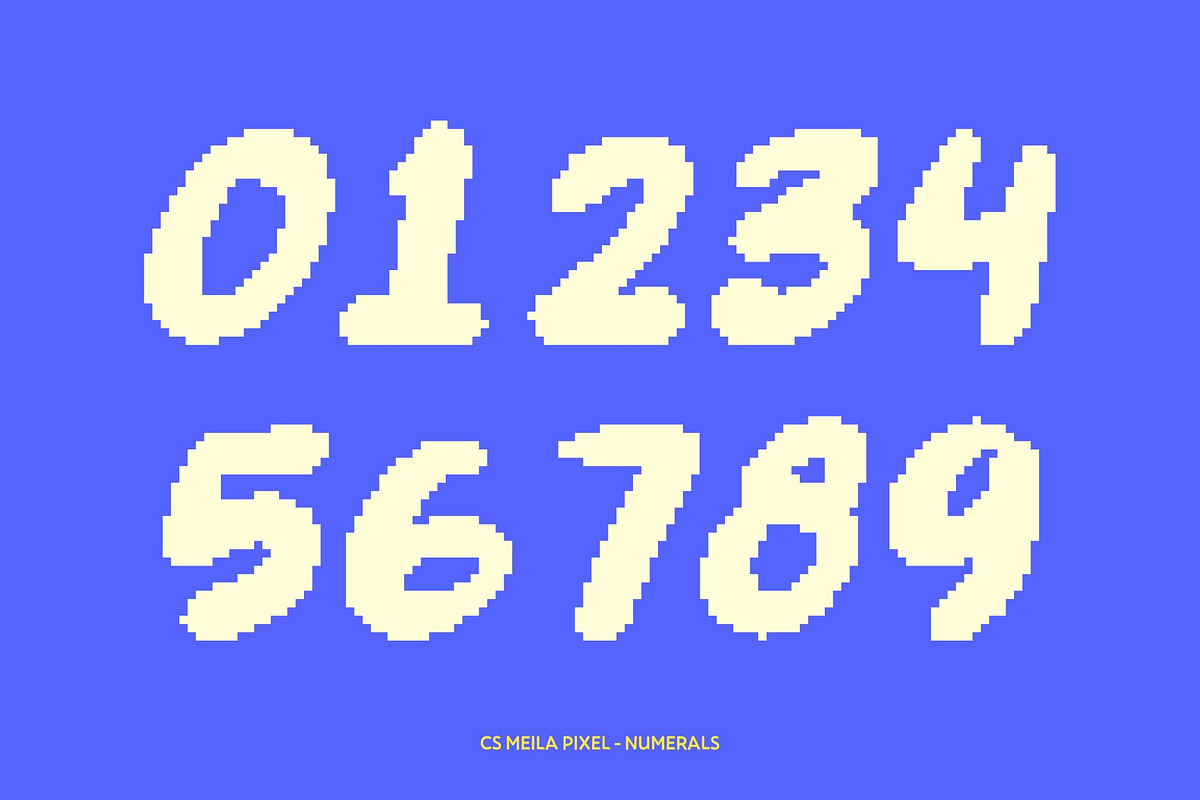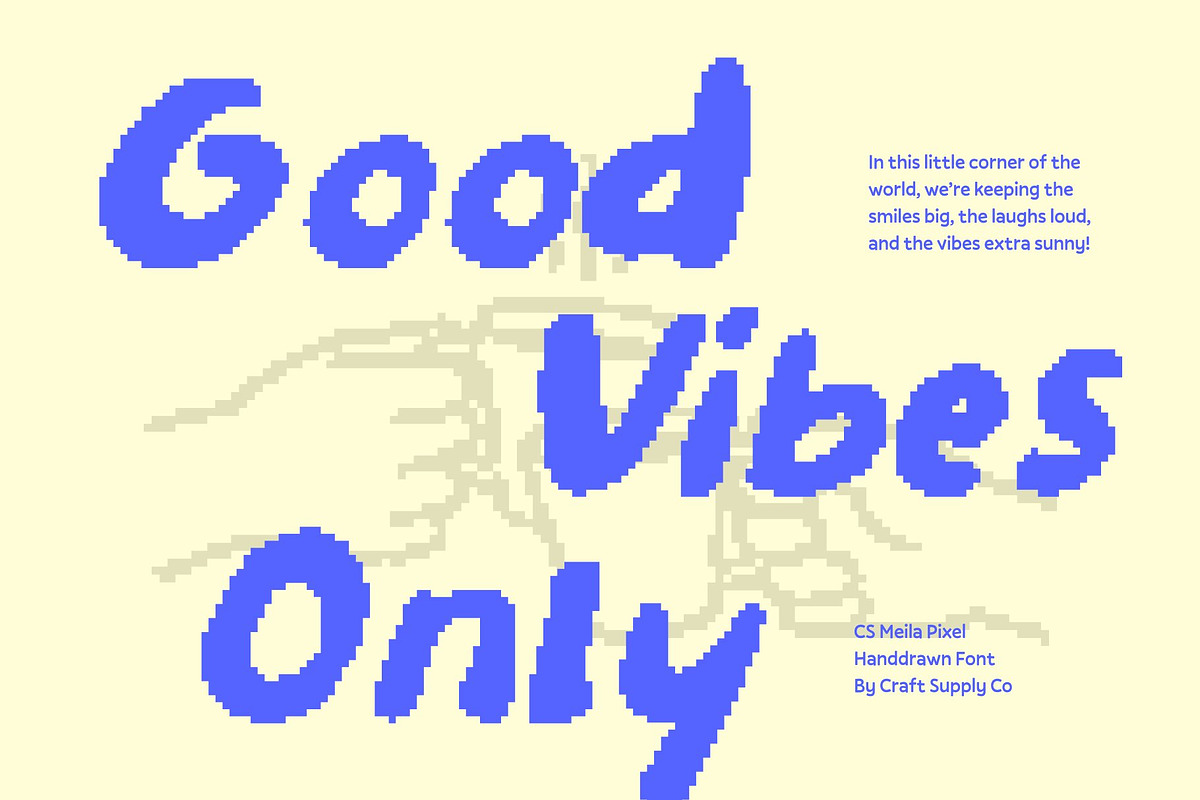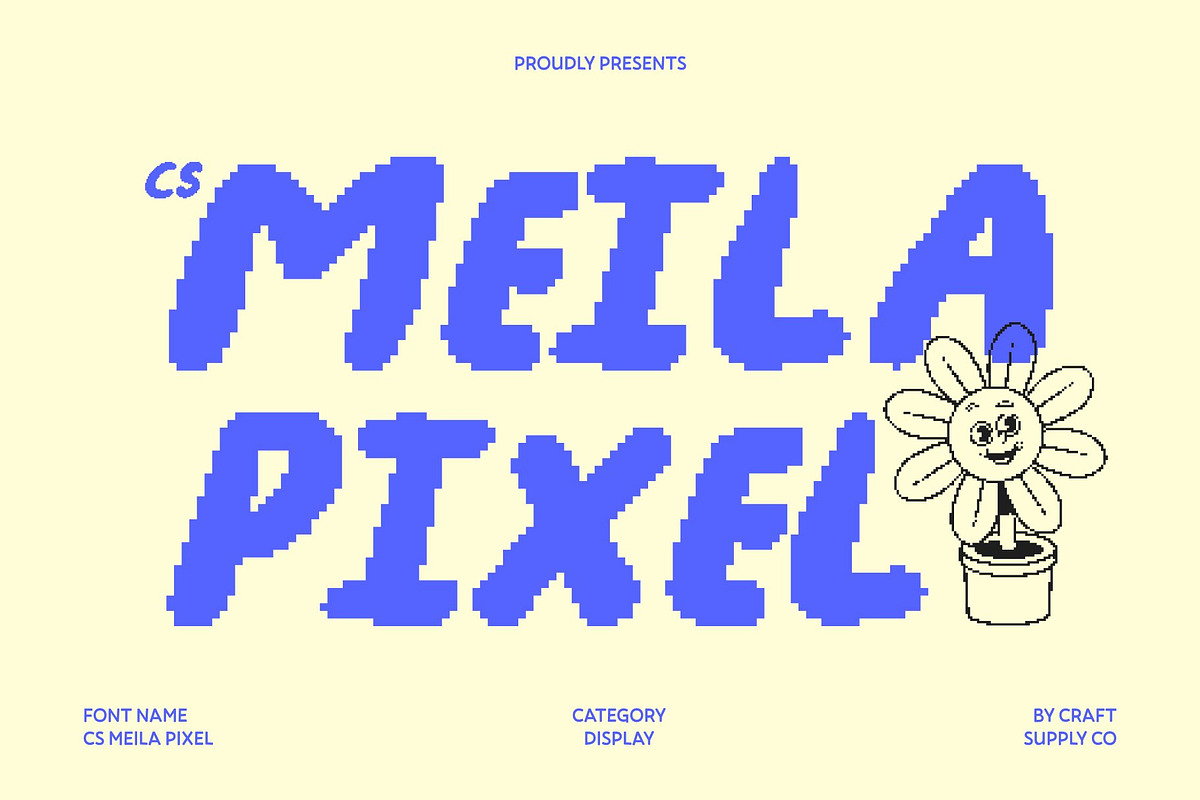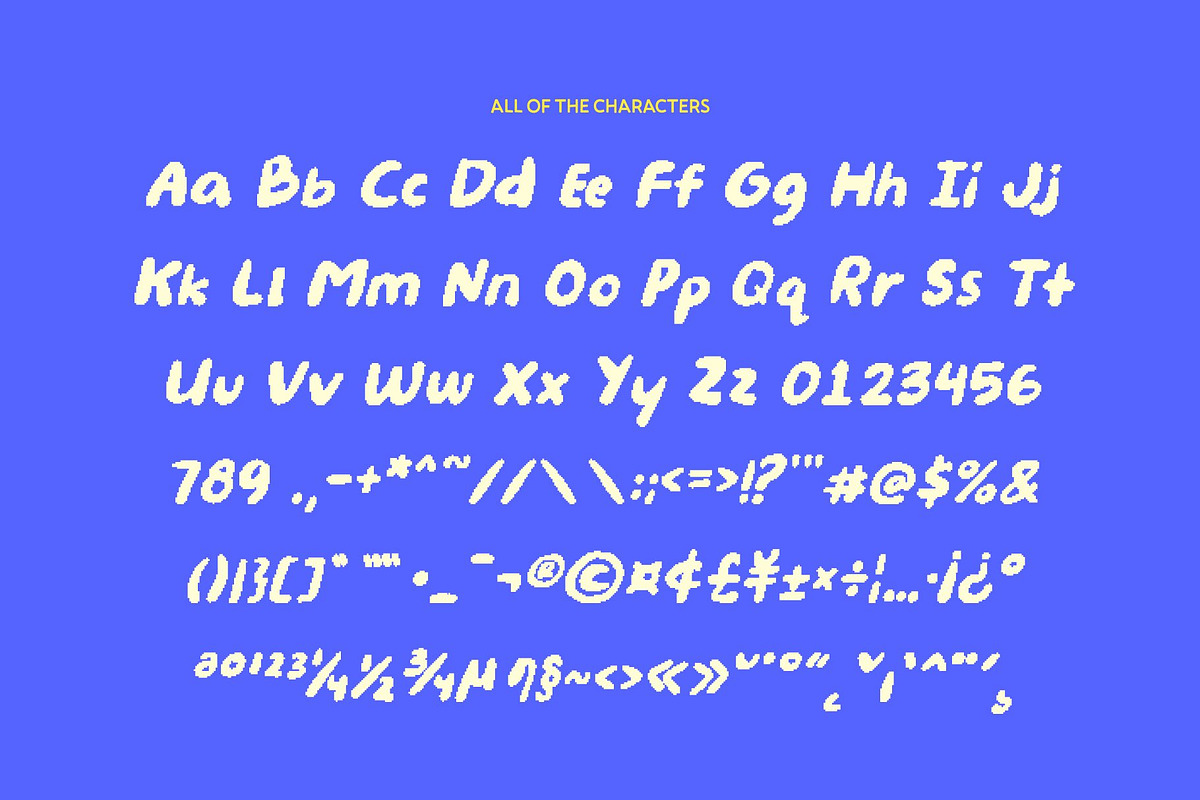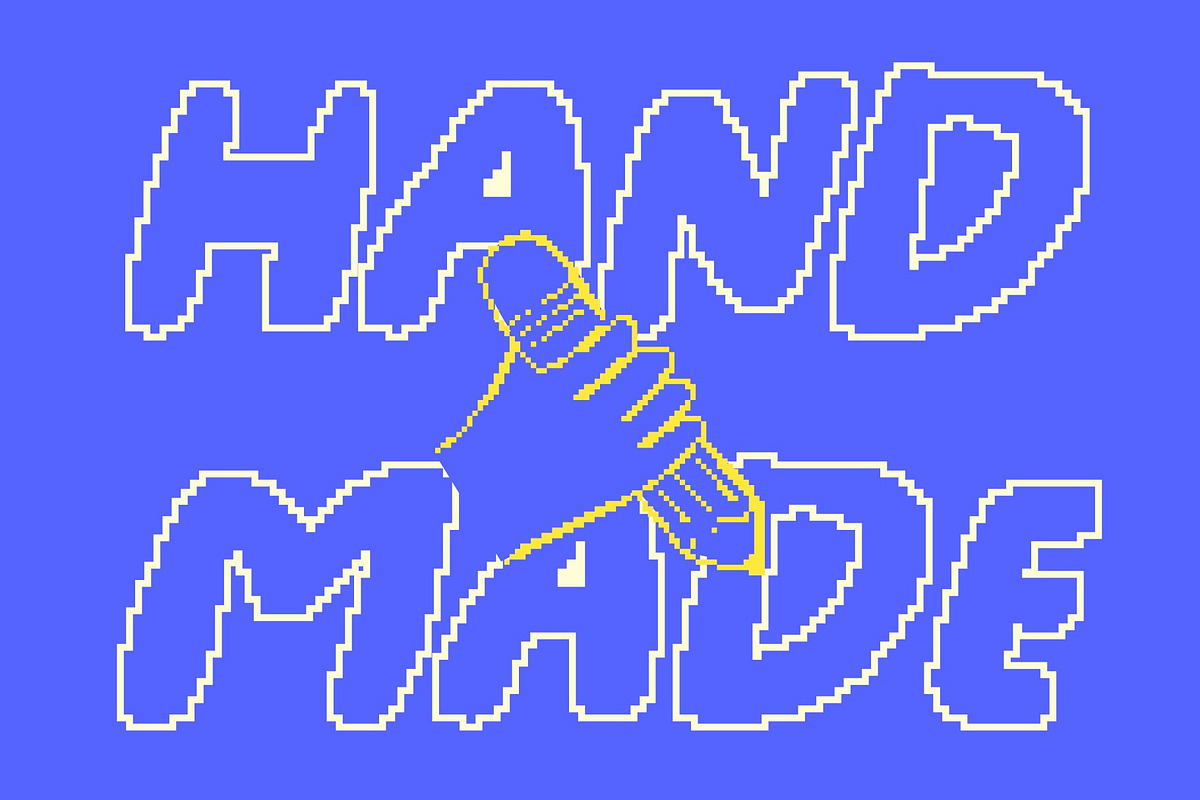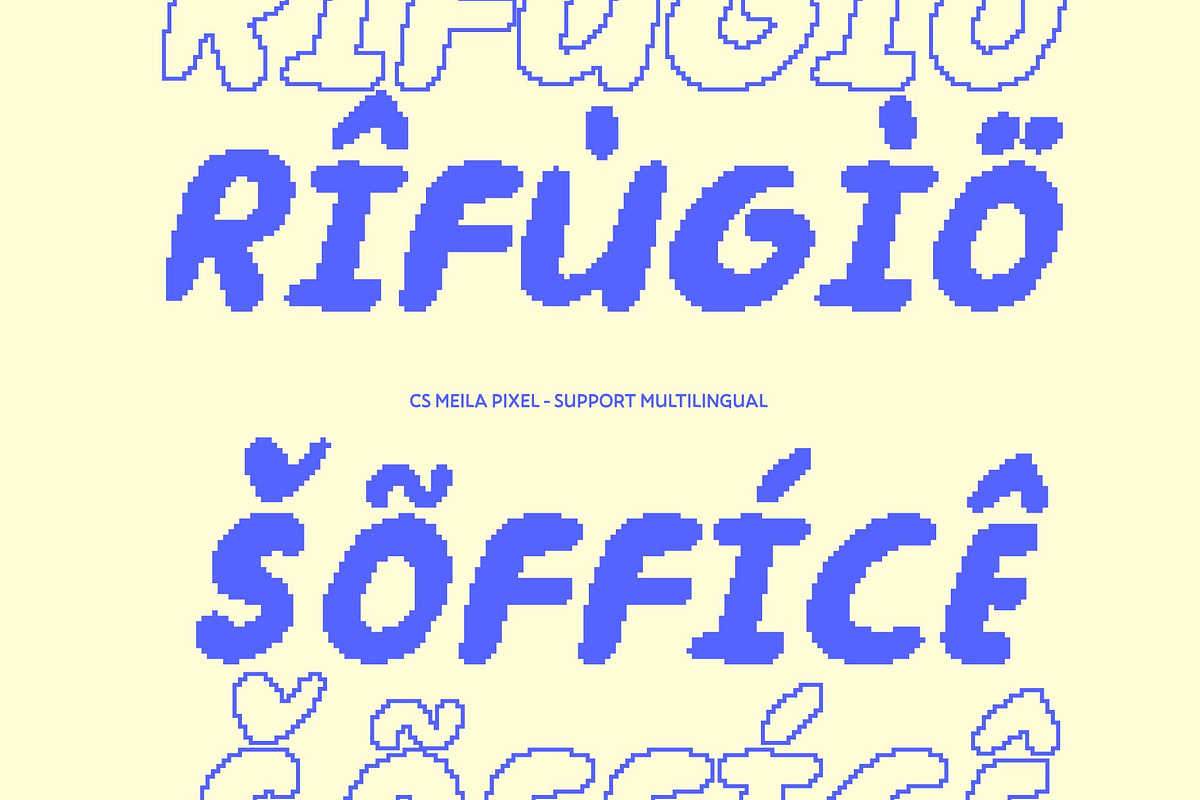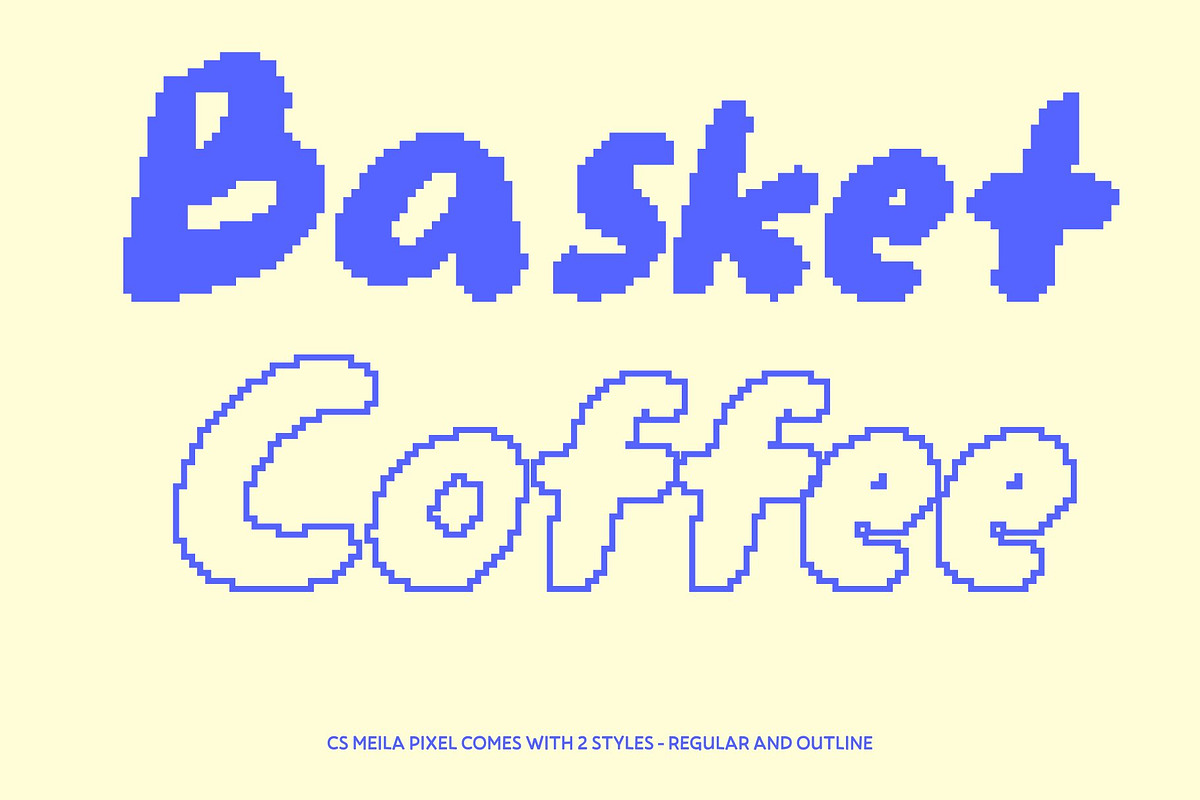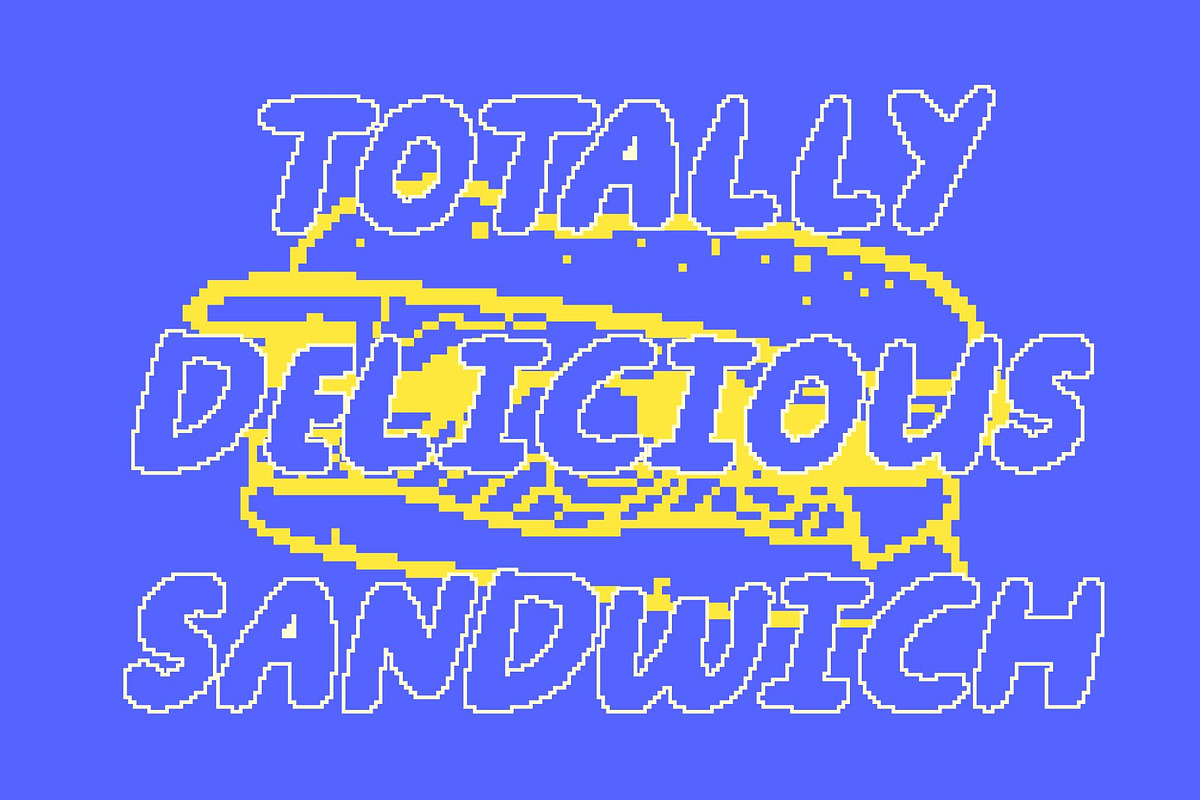
CS Meila Pixel
CS Meila Pixel – Playful Kids’ Font with Lively Digital Personality
Cheerful Shapes with Playful Pixel Energy This is a kids’ display font designed to spark joy, fun, and creativity through lively letterforms and pixel-inspired details. Its playful curves and blocky digital touches create a cheerful visual rhythm that instantly grabs attention. Each character feels energetic and friendly, making the font perfect for bright, engaging, and youthful designs.
Lively Pixel Characters for Dynamic Visual Appeal Bold, expressive shapes give this font a standout personality in playful layouts. The addition of pixel styling brings a fun retro-game feel, adding movement and excitement while keeping the letters clear and readable. Every word feels dynamic, bouncy, and full of imagination.
Playful, Friendly Style with Digital Charm Combining rounded strokes, whimsical details, and pixel accents, this font feels approachable and imaginative. Its friendly construction enhances readability while delivering a joyful, spontaneous look that appeals to both children and adults. The pixel elements add extra charm, making designs feel interactive and fun.
Perfect for Games, Posters, and Children’s Digital Branding Ideal for games, posters, children’s branding, educational materials, party invitations, packaging, and playful editorial layouts, this font brings cheerful personality and digital excitement to every project. Whether for fun headlines or interactive content, this font ensures designs feel vibrant, memorable, and full of life.